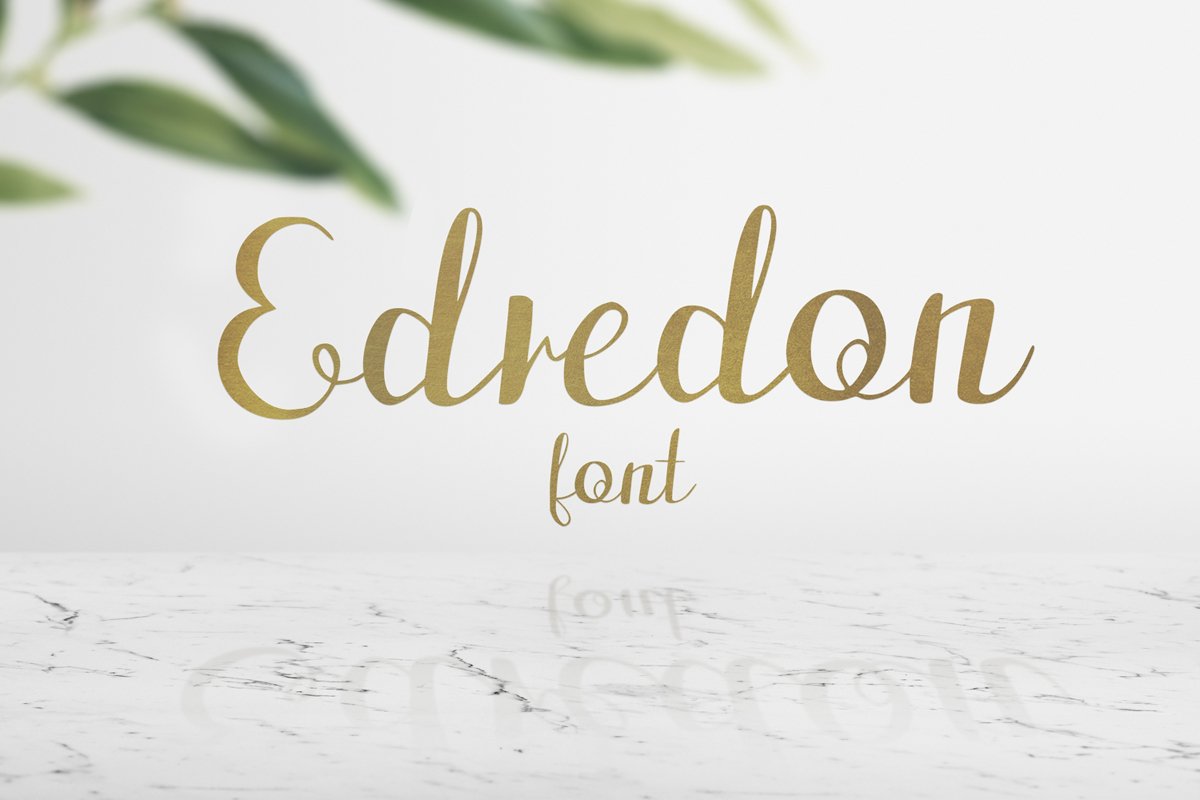
Edredon Font
Edredon font is a simple and cute typeface. Just perfect for all your wedding and lovely projects, headings, flyer, greeting cards, T-shirts, logos and much more.
This font includes 200 glyphs. I also created 42 ligatures.